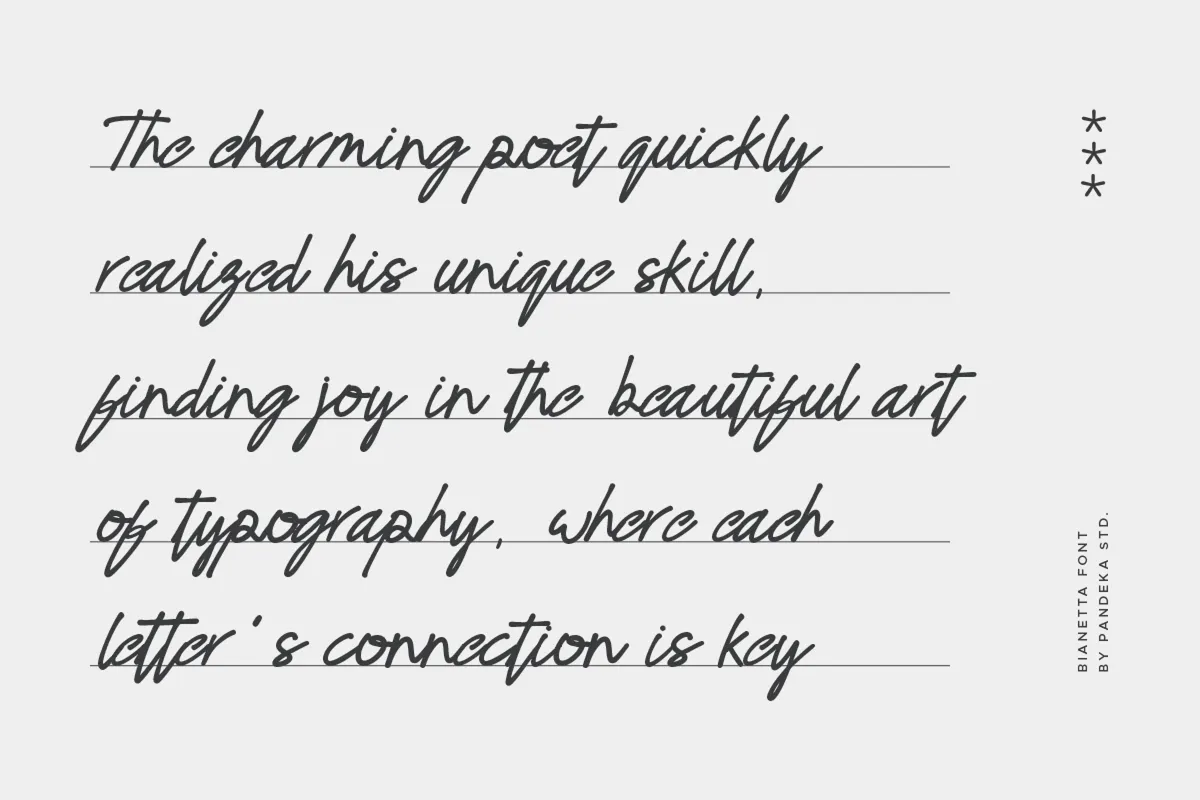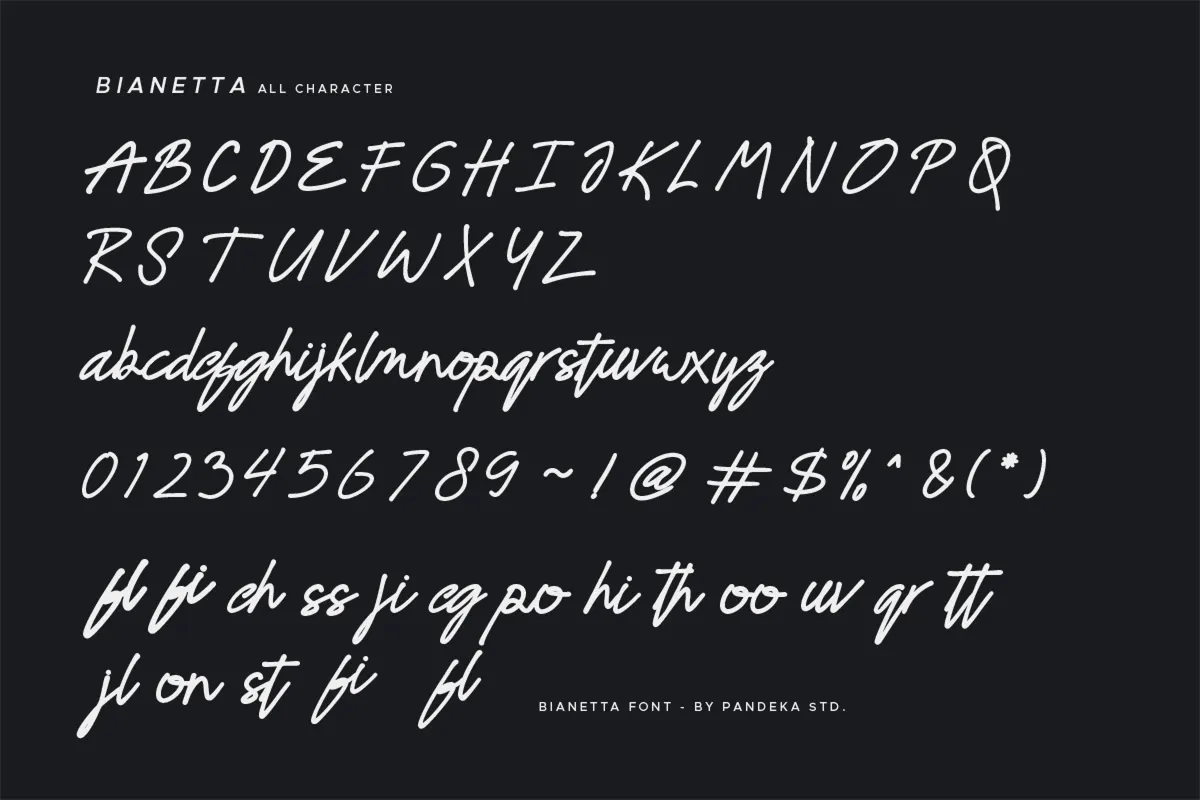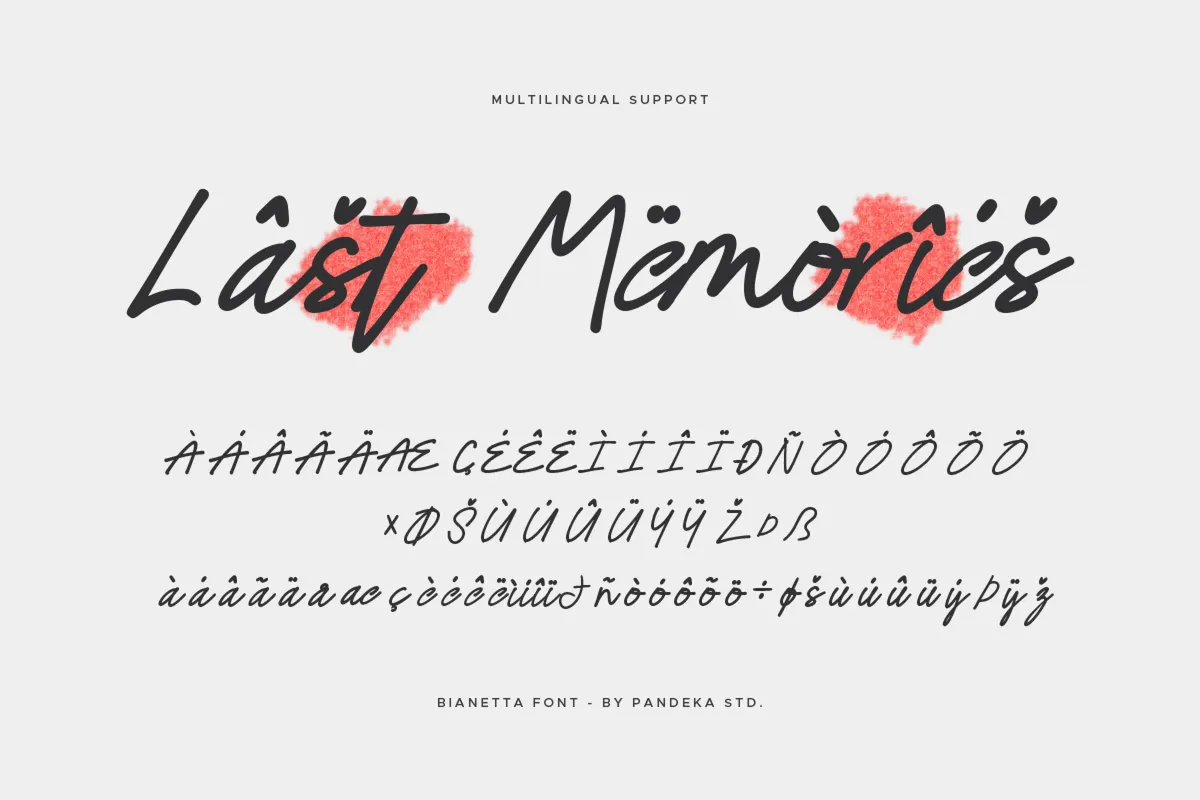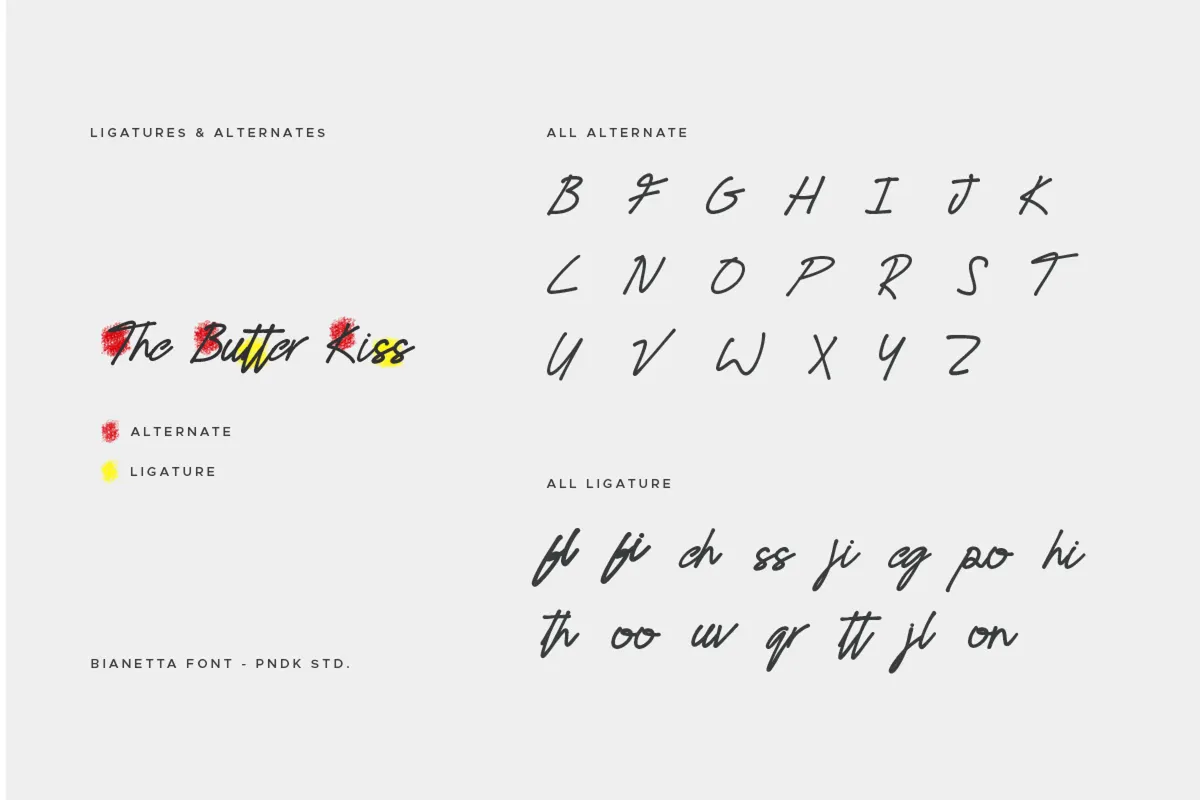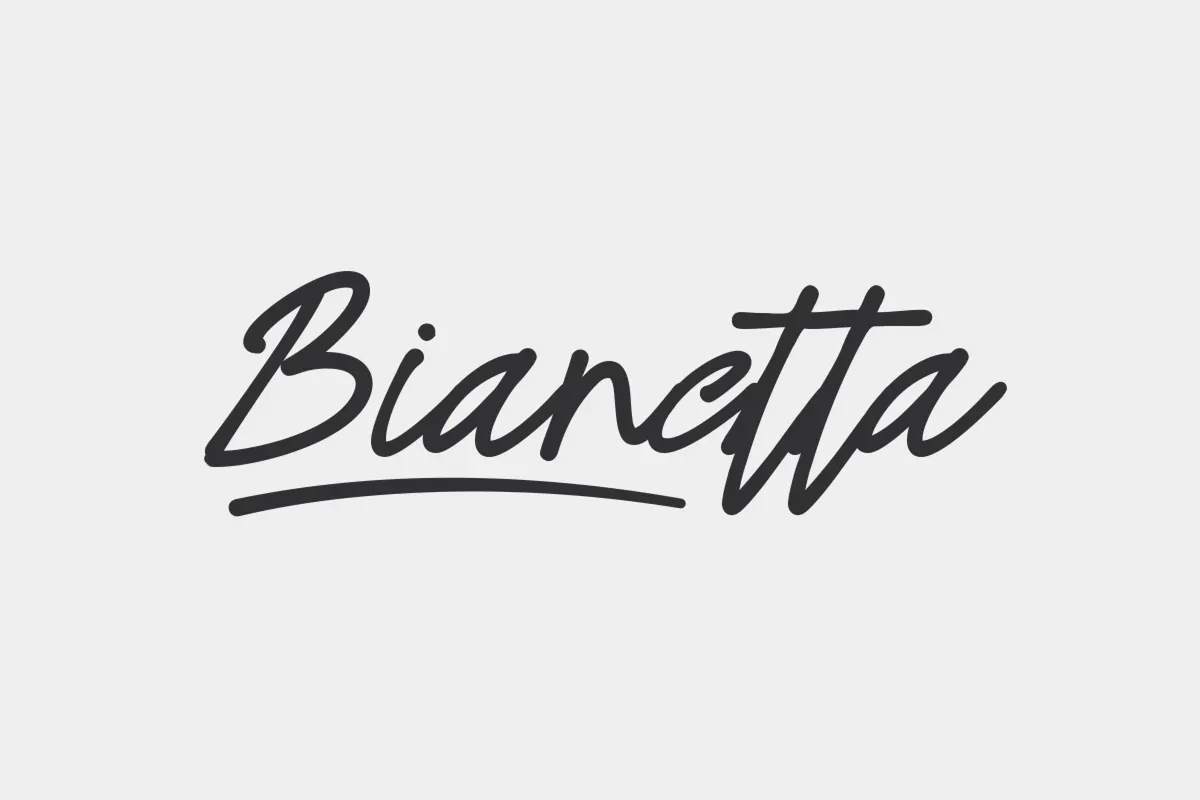
Bianetta - Modern Script Font
Bianetta
Bianetta draws a loose, flowing signature script with connected exit and entry strokes, closer to a handwritten note than a formal calligraphy face. Twenty-two letters come with alternate forms, and 15 ligatures connect pairs like th, ch, ss, and qr into single continuous strokes, all reachable through the OpenType panel.
Use it for logo design, wedding invitations, branding, social media posts, and product packaging.
- Uppercase & lowercase;
- Numerals, punctuation & symbols;
- 1 style: Regular;
- 15 ligatures, stylistic alternates on select characters, fractions, superscript figures;